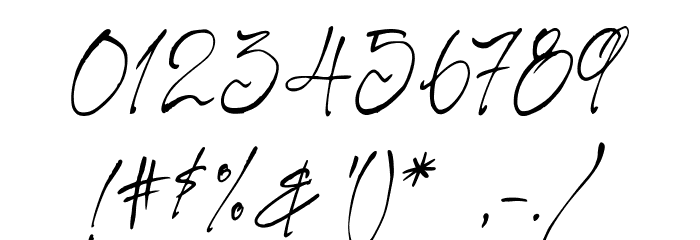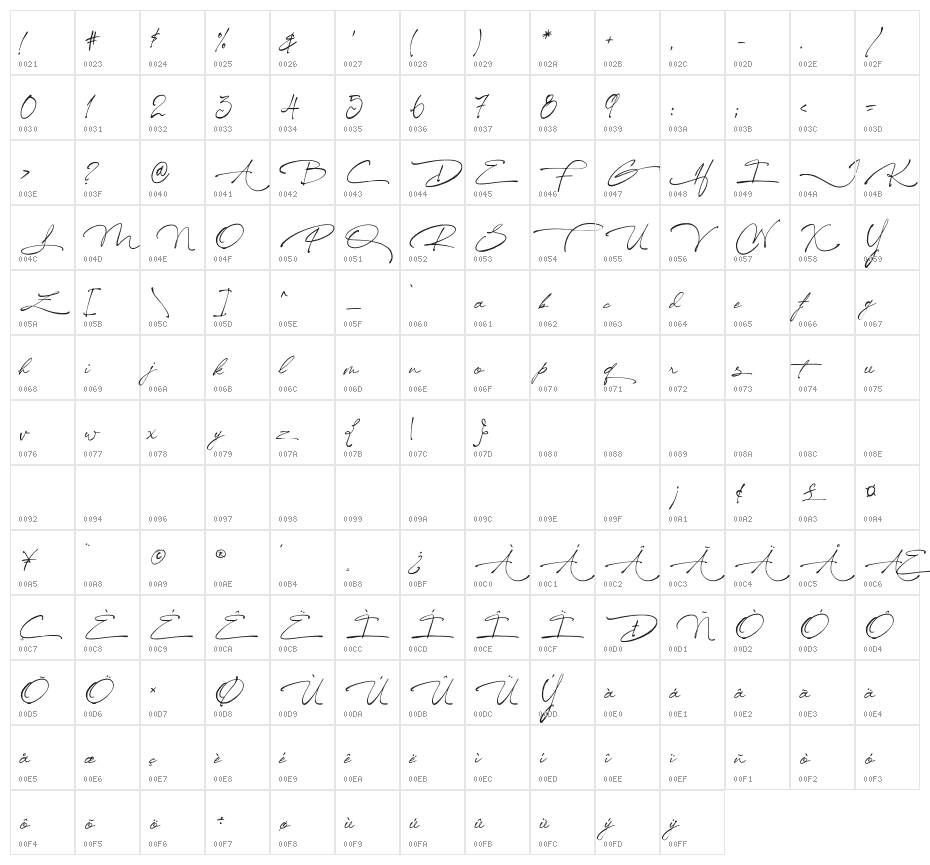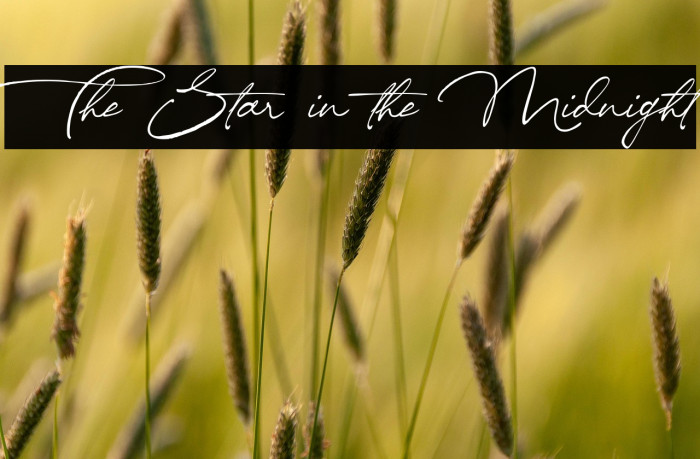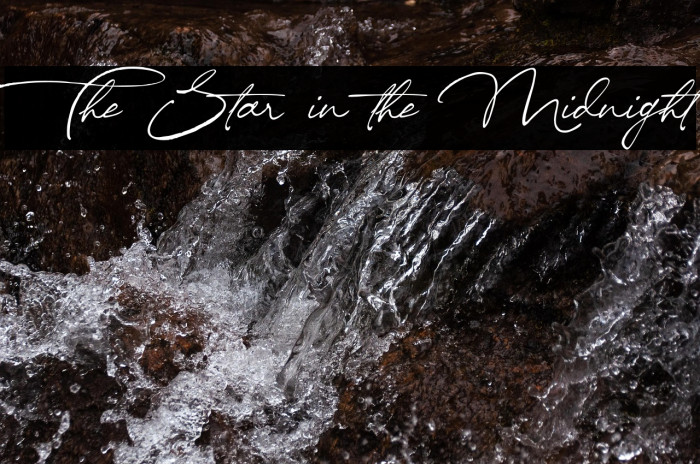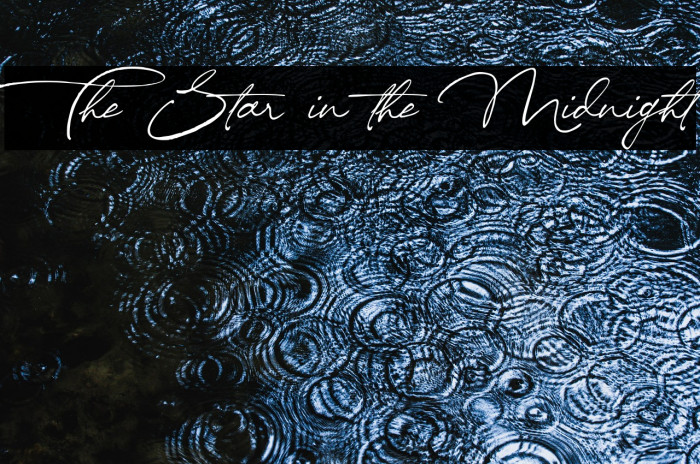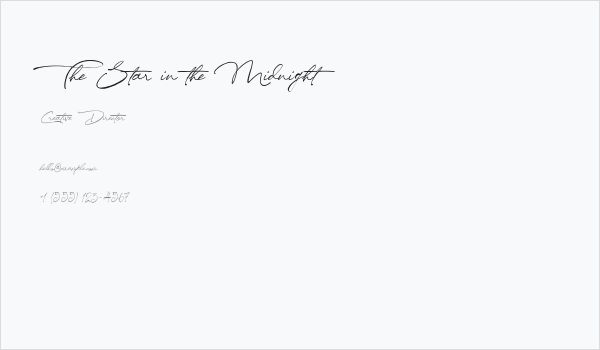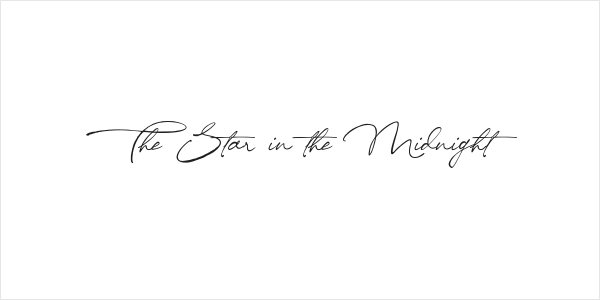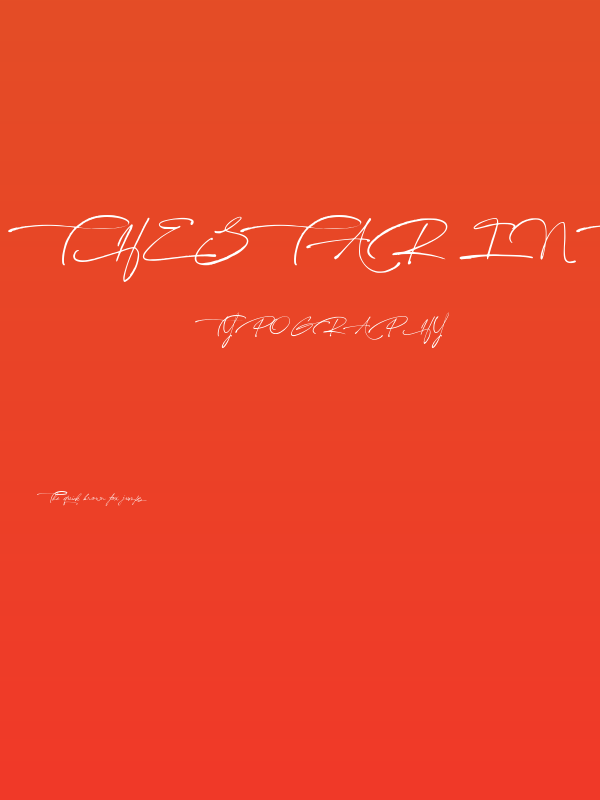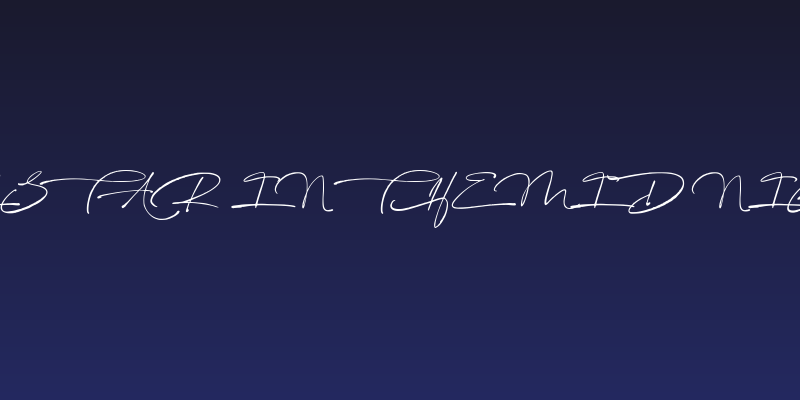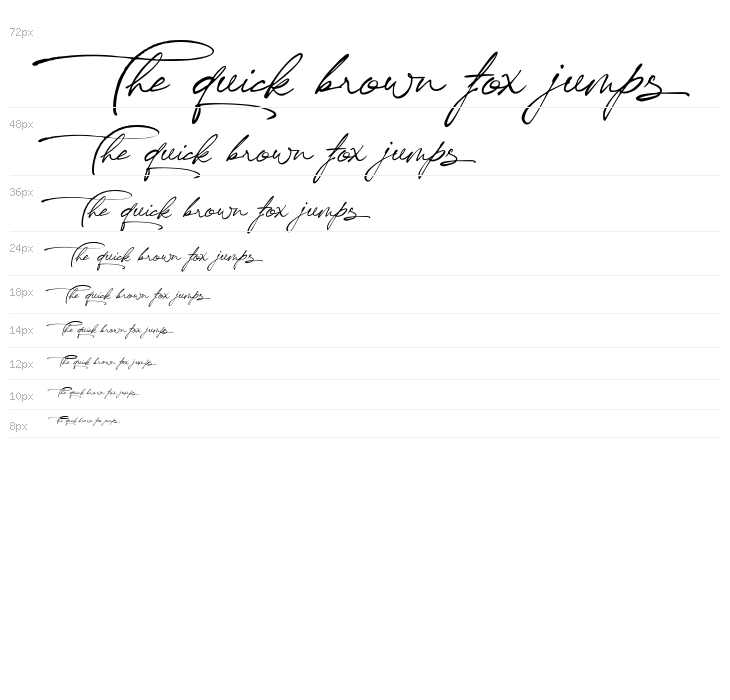
The Star in the Midnight Font
The Star in the Midnight Description
This font exudes an elegant and sophisticated style, characterized by its fluid, cursive script. The letters are interconnected with graceful, sweeping strokes that give it a handwritten feel. The uppercase letters are particularly ornate, with flourishes that add a touch of drama and flair. The lowercase letters maintain a consistent flow, enhancing readability while retaining an artistic touch. Numbers and special characters are designed with the same attention to detail, ensuring a cohesive look. This font is ideal for projects that require a personal, yet polished appearance.
| Overall Style | Elegant, Artistic |
| Proposed Projects | Ideal for wedding invitations, personal branding, elegant logos, and artistic quotes. |